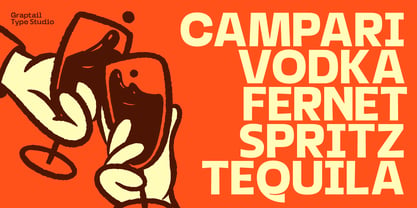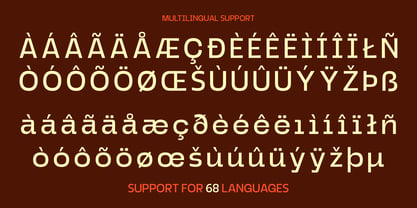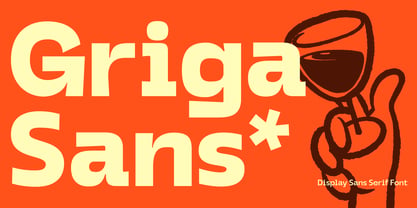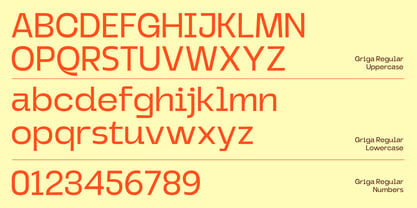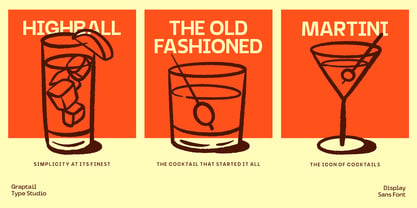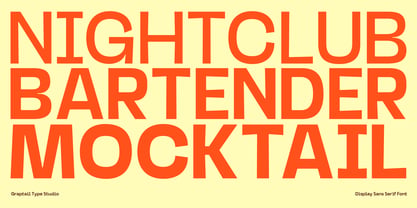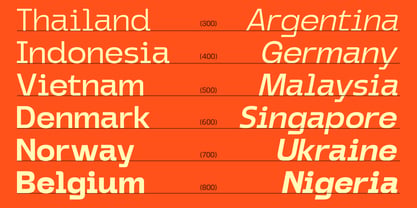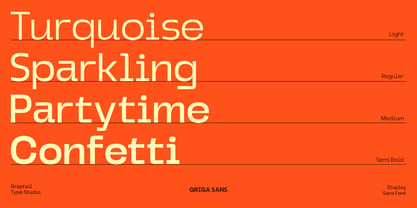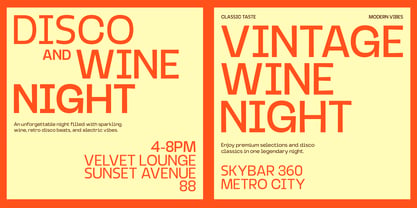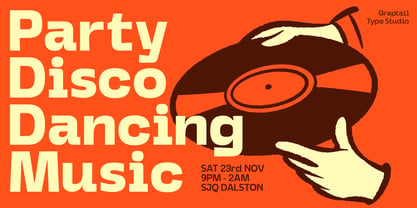
Griga
by Graptail
The Griga Font Family was designed by Teuku Deky Firnanda and published by Graptail. Griga contains 18 styles and family package options. More about this family
Griga Sans is a contemporary display sans serif designed with clarity, strength, and visual impact in mind. Its structured letterforms and balanced proportions make it particularly effective in large-scale applications where presence and readability are essential. The family consists of 9 weights ranging from Thin to Black, accompanied by a Regular and Italic style, offering designers a versatile typographic system for building clear hierarchy and expressive contrast. Griga Sans combines geometric construction with subtle detailing, resulting in a typeface that feels modern, stable, and adaptable across various visual contexts.
Designers: Teuku Deky Firnanda
Current Foundry: Graptail